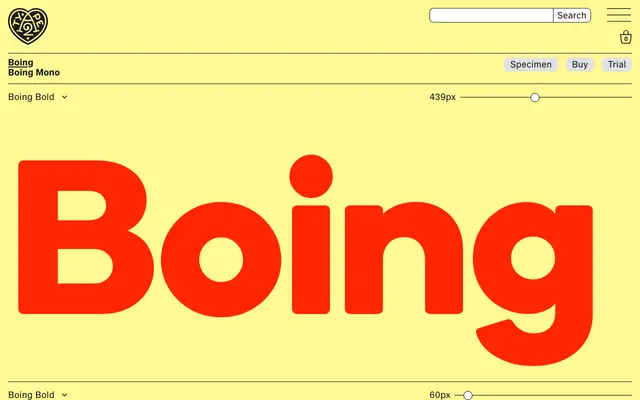
A rounded sans-serif from A2-Type spanning six weights with italics, designed to work across display and text settings.
Soft terminals and even stroke weights give it a friendly, approachable tone without sacrificing legibility at smaller sizes. The family runs from Thin to Bold with matching italics across all weights, and a monospaced variant, Boing Mono, has since been added to the library. The range makes it serviceable for branding, editorial and screen work where warmth is wanted without going fully playful.
A rounded sans-serif with softened terminals throughout, positioned as both a display and text face. The geometric softness and even stroke weight place it firmly in the rounded sans subcategory.